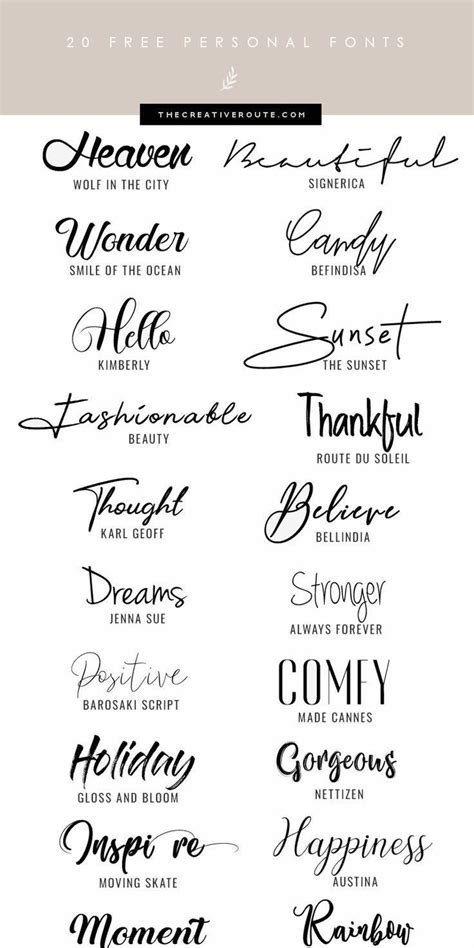
Stylize Your Windows 10 Experience: Discover the Ultimate Collection of Free Fonts!
Stylize Your Windows 10 Experience: Discover the Ultimate Collection of Free Fonts!Are you tired of using the same old fonts on your Windows 10 computer? Do you want to give your documents and presentations a new look and feel with some trendy fonts? If yes, then you have come to the right place!What if we told you that there is a vast collection of free fonts available online that can stylize your Windows 10 experience like never before? Well, it's true! You can now get your hands on the ultimate collection of free fonts that will add that extra oomph to your writings and designs.Not convinced yet? Did you know that changing the font style can improve a document's readability by up to 20%? Yes, you heard that right. So, don't miss out on the chance to make it easier for your audience to read and understand your content.Moreover, using different fonts can evoke different emotions and create a unique impression on your viewers. Want to appear professional, elegant, or playful? There's a font for that! With so many free fonts available, you can easily find the perfect one for your specific needs.But, where can you find this treasure trove of fonts? Look no further than Google Fonts, a comprehensive directory of free, open-source typography. You can browse through thousands of fonts, filter and compare them, and download them for free with just a few clicks.The best part? Installing these fonts on your Windows 10 computer is also a breeze. Once downloaded, you can use them in any compatible software like Microsoft Word, PowerPoint, or Photoshop.In conclusion, discovering and using free fonts from Google Fonts can transform your Windows 10 experience and enhance your creativity like never before. So, what are you waiting for? Go ahead, explore, and stylize your writings today.
Introduction:
Windows 10 is the most popular operating system in the world, and its interface plays a big role in that success. While Windows 10 comes with many default fonts, sometimes you may want to change the font and replace it with something more unique. Fortunately, there are many free fonts available online that can give your Windows 10 experience a new look and feel.
The Ultimate Collection of Free Fonts:
There are thousands of free fonts available on the internet, but finding the right one can be time-consuming. To save you time, we’ve compiled a list of the ultimate collection of free fonts for Windows 10. This collection includes a variety of fonts, from classic to modern, which can be used for various purposes such as headings, body text, and even for graphics or logos.
Font Categories:
Fonts can be divided into categories based on their style, weight, and other characteristics. Some common font categories include serif, sans-serif, script, and display. Each font category has its own unique qualities, making them suitable for different purposes. For example, serif fonts are often used for body text, while display fonts are used for headlines or titles.
Comparison Table:
| Font Name | Category | Style | Download Link |
|---|---|---|---|
| Open Sans | Sans-serif | Regular, Bold, Italic | Download Open Sans |
| Lobster | Script | Regular | Download Lobster |
| Montserrat | Sans-serif | Regular, Bold, Italic | Download Montserrat |
| Bebas Neue | Sans-serif | Regular | Download Bebas Neue |
| Roboto | Sans-serif | Regular, Bold, Italic, Light | Download Roboto |
Opinion:
In conclusion, changing the default Windows 10 font to something more unique can add a personal touch to your computer usage. With the ultimate collection of free fonts available online, you can easily find a font that suits your style and needs. However, it’s important to use fonts appropriately, depending on their category and style. Overall, using free fonts can enhance your Windows 10 experience and make it more enjoyable.
Stylize Your Windows 10 Experience: Discover the Ultimate Collection of Free Fonts!
Are you tired of the same old fonts on your Windows 10 computer? Want to spice up your documents and designs with some fresh, new typography? Look no further! We've compiled the ultimate collection of free fonts for your Windows 10 experience.
From classic serifs to modern sans-serifs, script fonts to display typefaces, our collection has it all. And the best part? They're all completely free to download and use!
So why settle for boring, default fonts when you can enhance your Windows 10 experience with a vast selection of stylish, professional-quality options? Happy font hunting!
Here are some common questions people ask about Stylize Your Windows 10 Experience: Discover the Ultimate Collection of Free Fonts:
- What is Stylize Your Windows 10 Experience: Discover the Ultimate Collection of Free Fonts?
- Why should I use Stylize Your Windows 10 Experience: Discover the Ultimate Collection of Free Fonts?
- How do I install the fonts recommended by Stylize Your Windows 10 Experience: Discover the Ultimate Collection of Free Fonts?
- Can I use the fonts recommended by Stylize Your Windows 10 Experience: Discover the Ultimate Collection of Free Fonts for commercial purposes?
- Are there any risks involved in installing fonts from Stylize Your Windows 10 Experience: Discover the Ultimate Collection of Free Fonts?
Stylize Your Windows 10 Experience: Discover the Ultimate Collection of Free Fonts is a guide that provides users with a wide range of free fonts to choose from in order to personalize their Windows 10 experience.
Using different fonts can help you make your Windows 10 experience more personalized and visually appealing. Additionally, the guide provides free fonts, which can save you money that you might otherwise spend purchasing fonts from other sources.